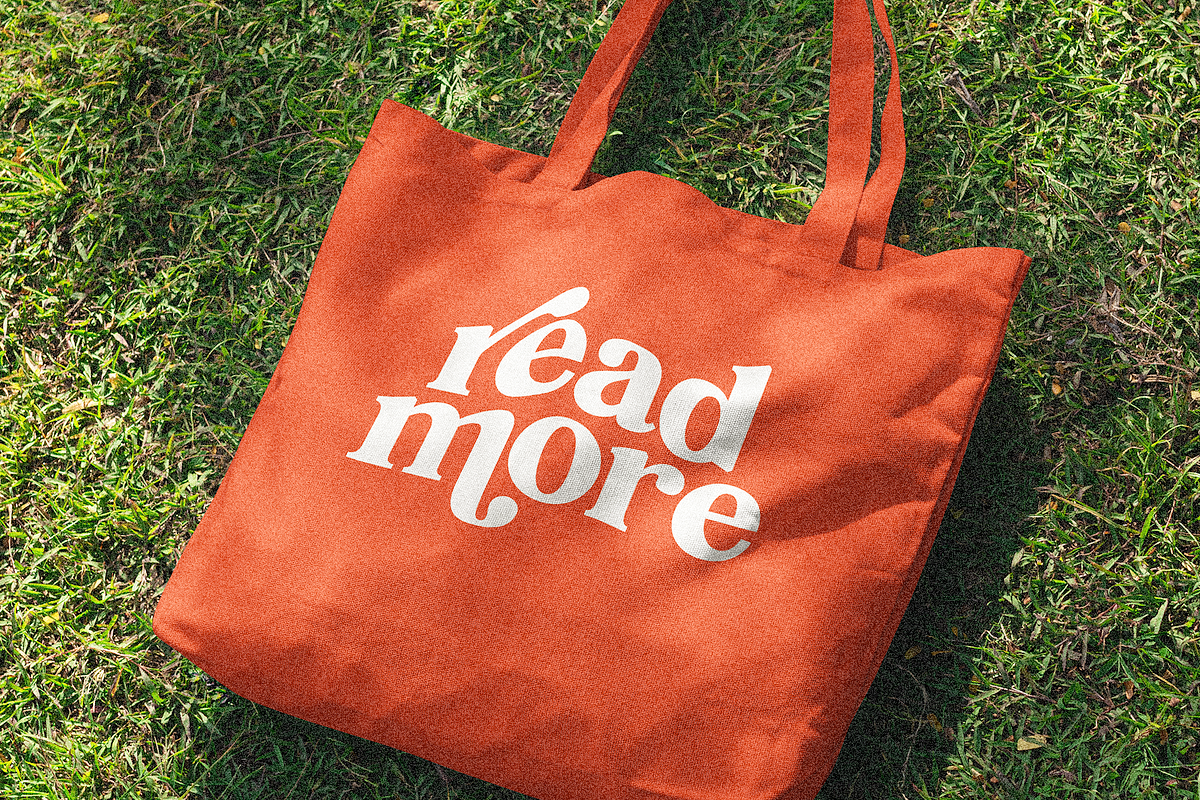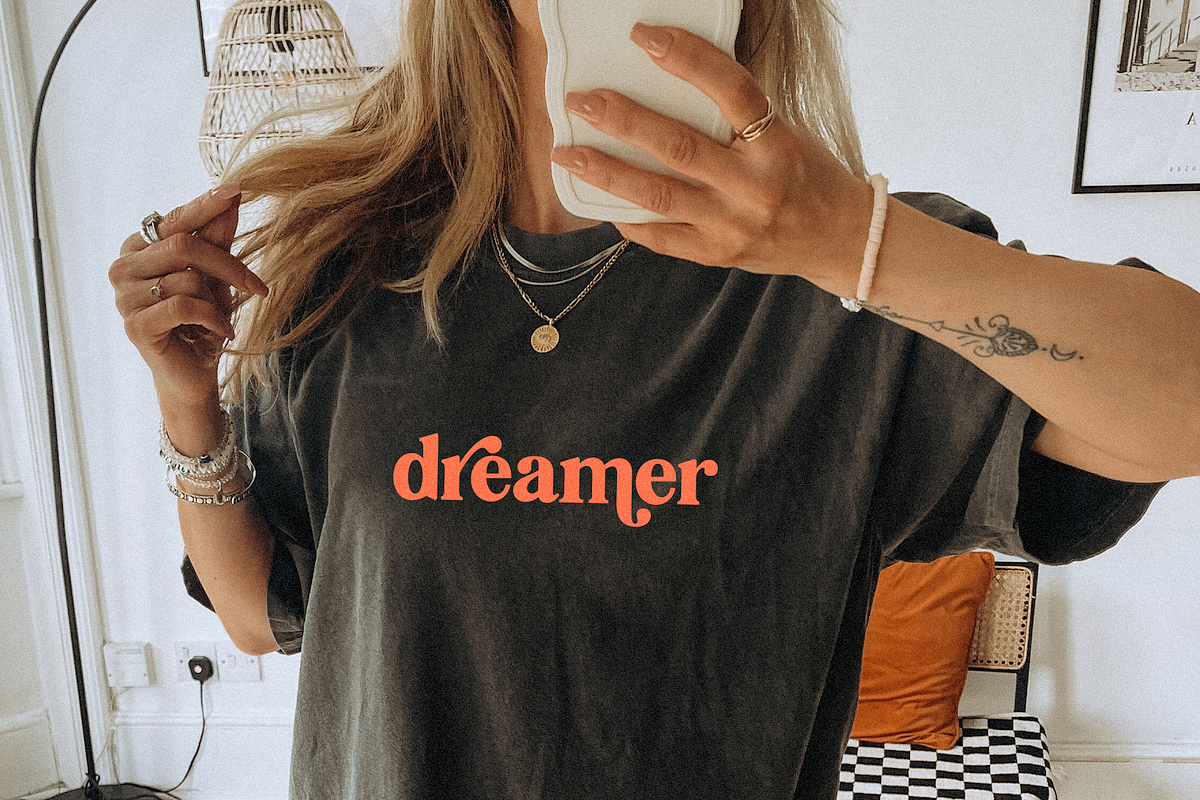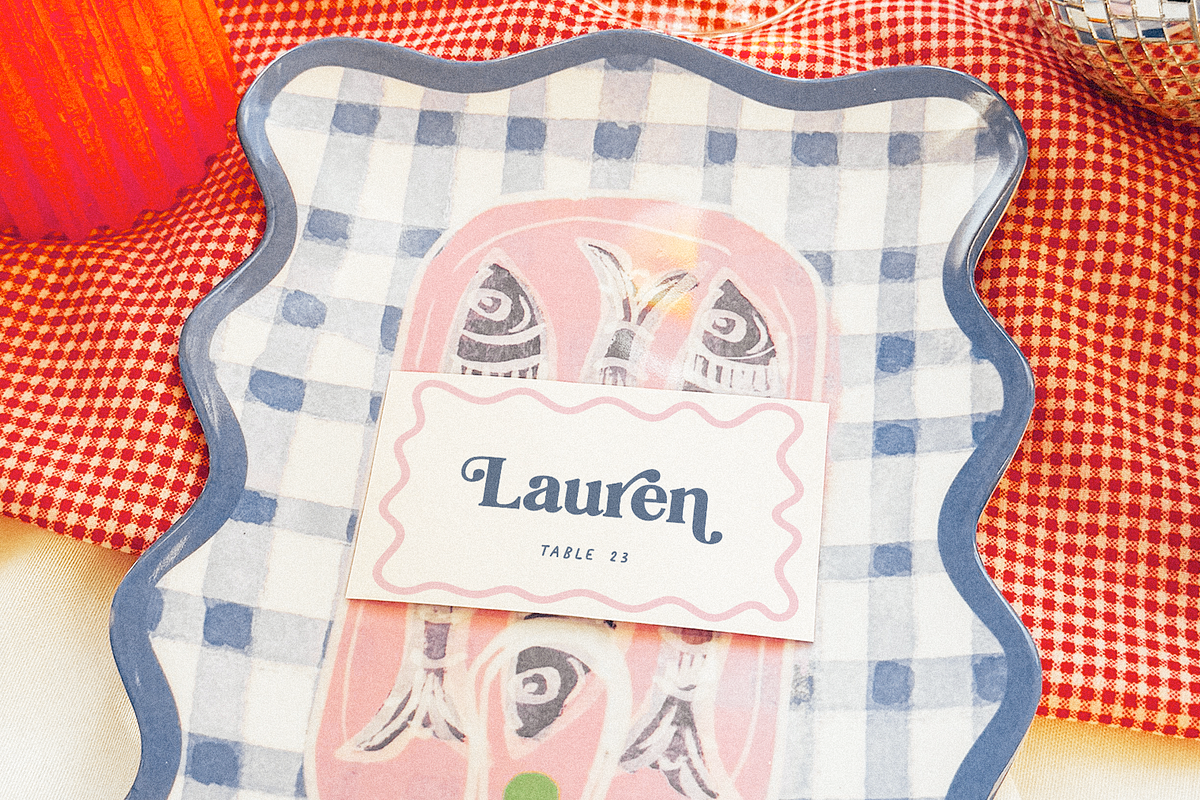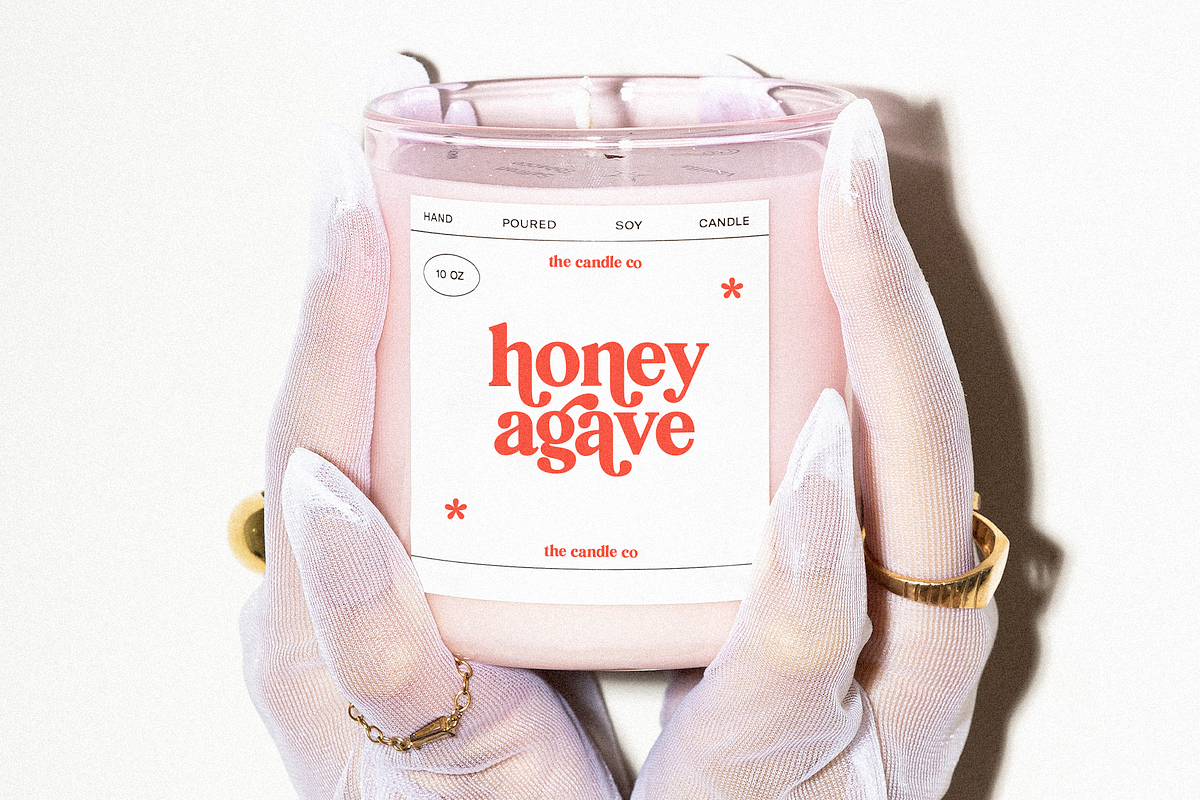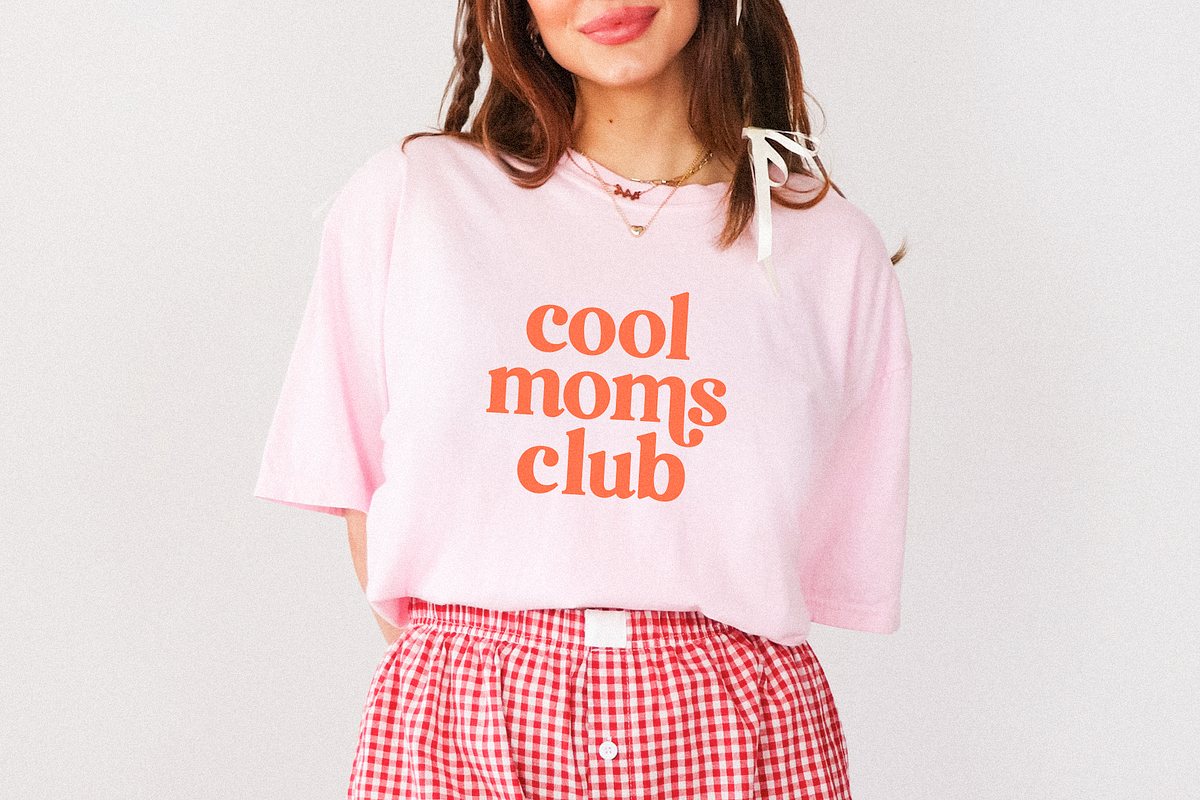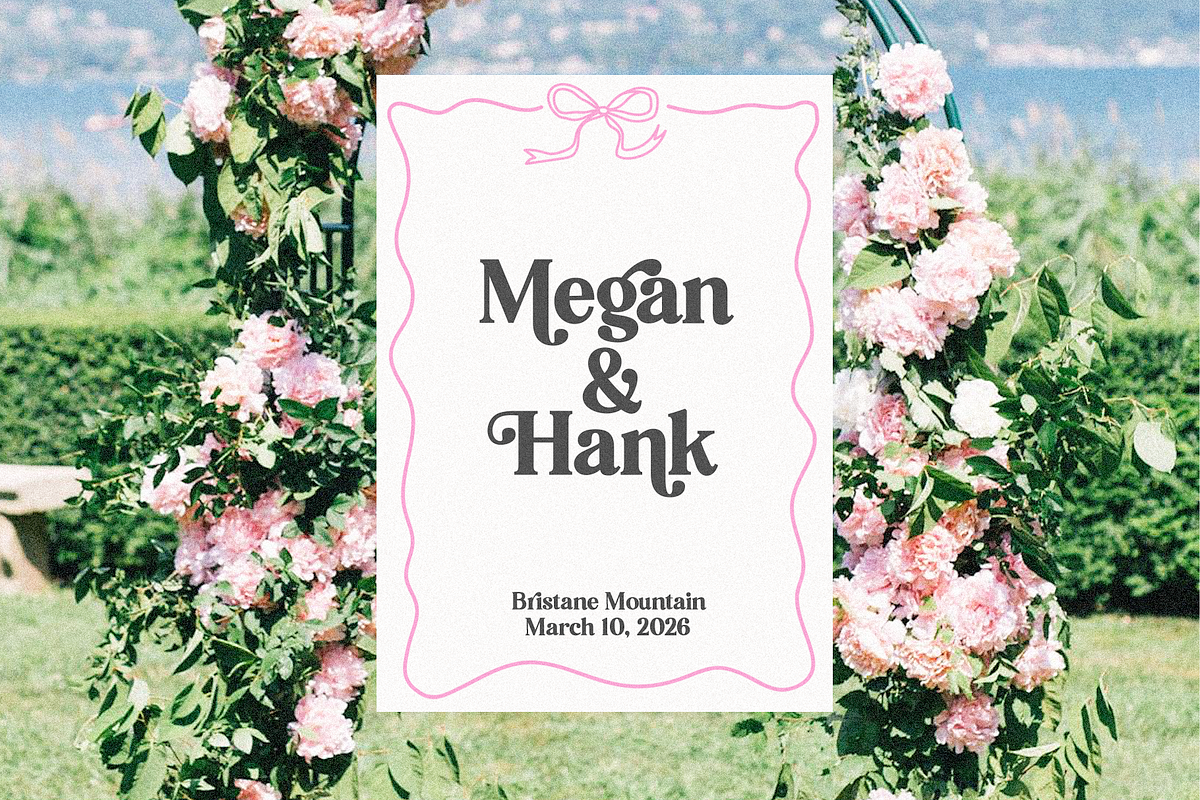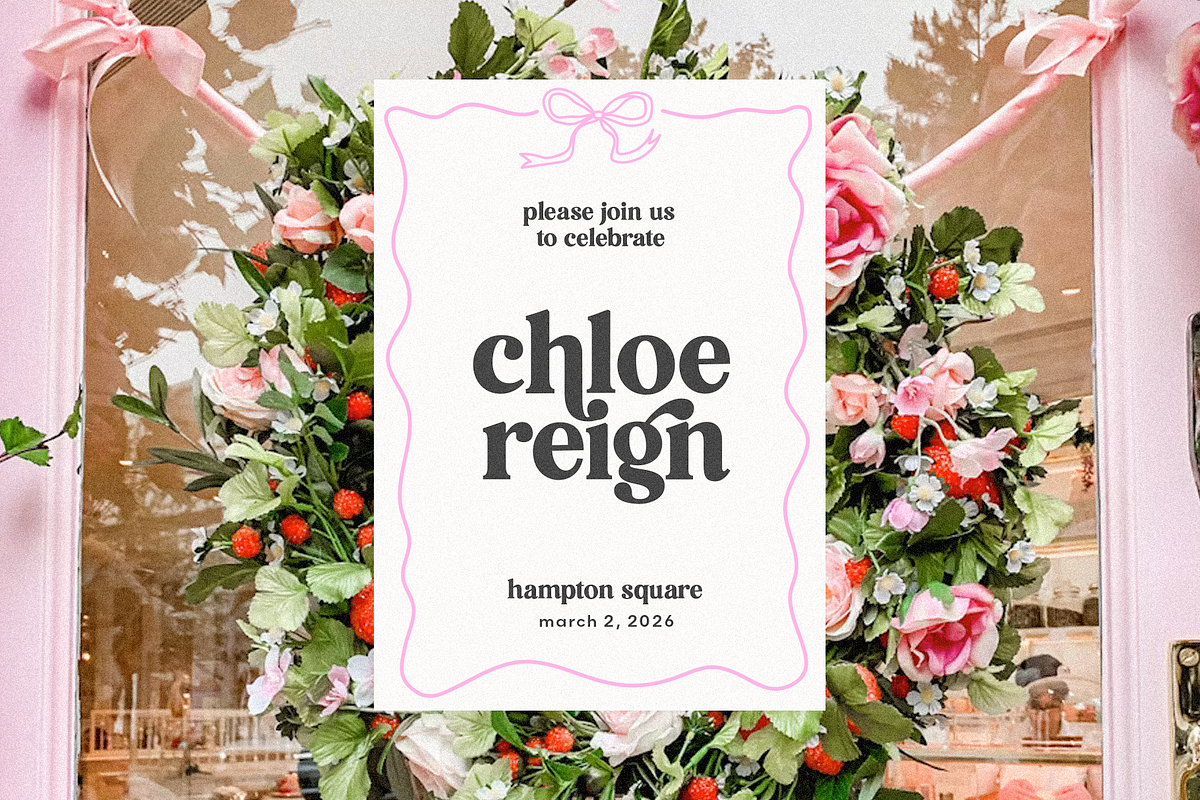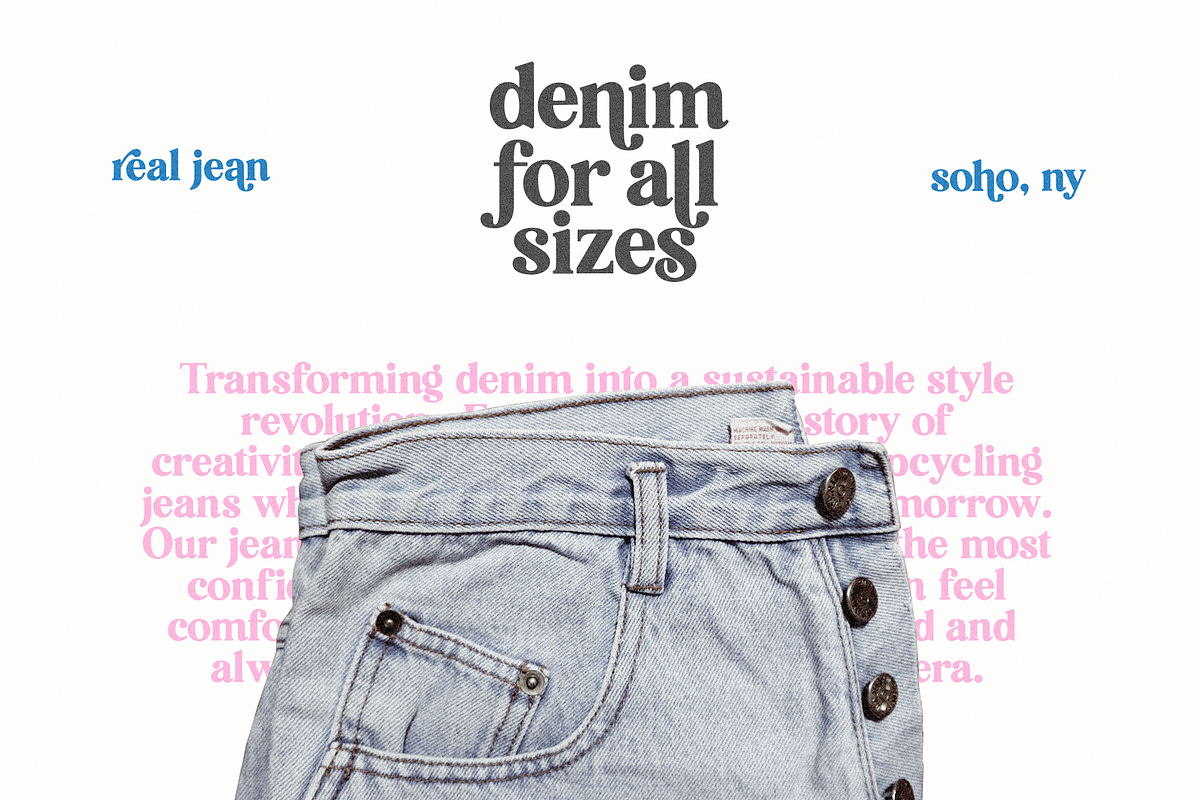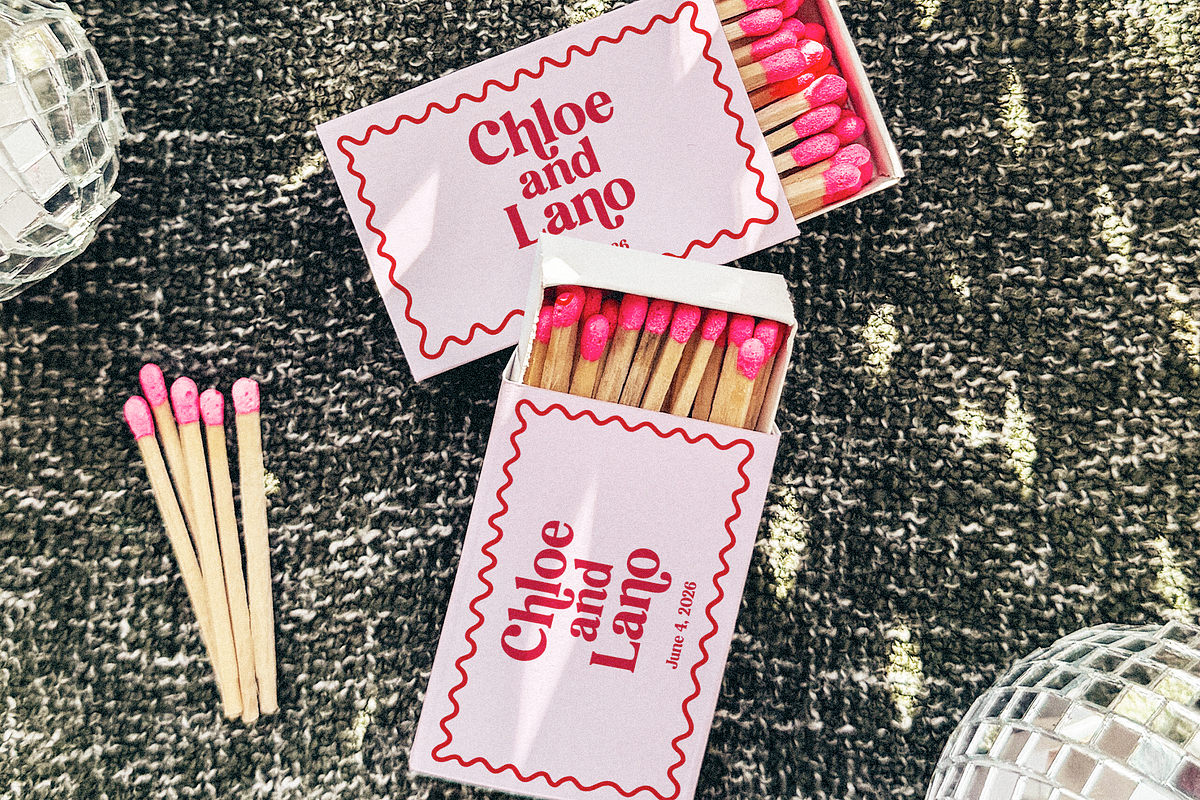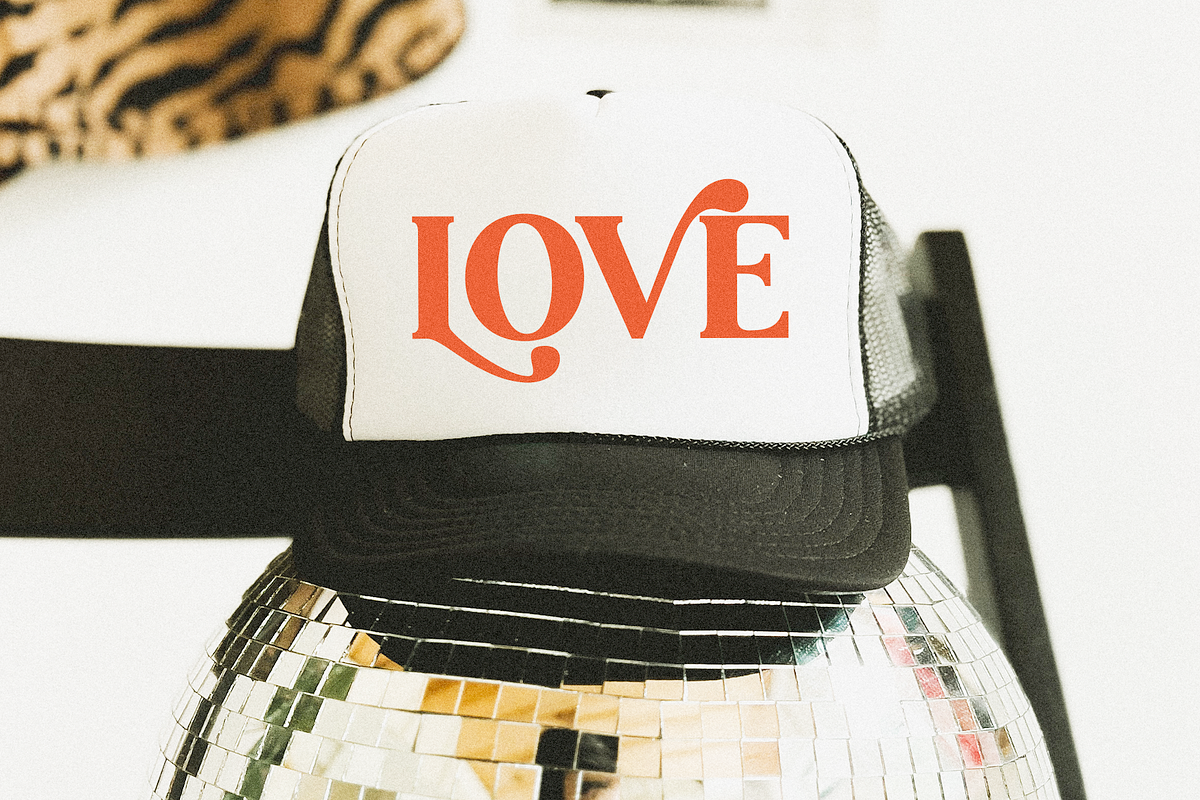
Magic Hours | Modern Serif Font
Magic Hours is a bold serif font with a modern vintage look!
Think Wild Mango but with bolder strokes and swoops. This font is modern with a vintage twist.. it is sure to bring attention to your brand and designs!
The letters with tails are embedded into the font file - you will need to know HOW to access the alternates in your design program.
There is NOT an alternate available for every letter - only certain letters that flow well with the font.